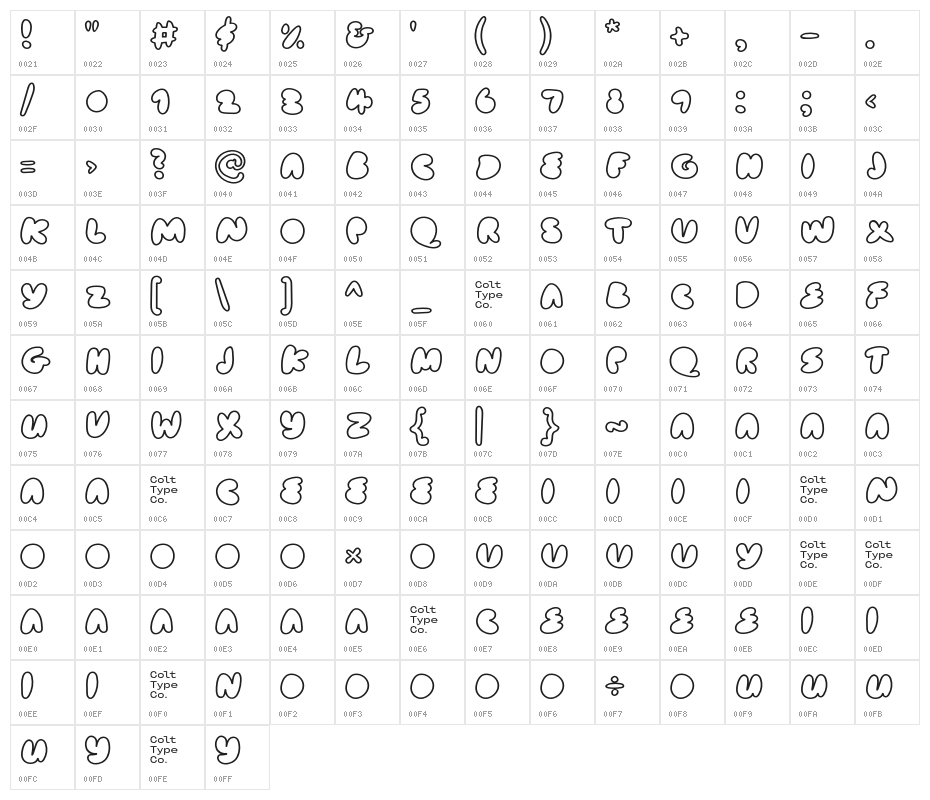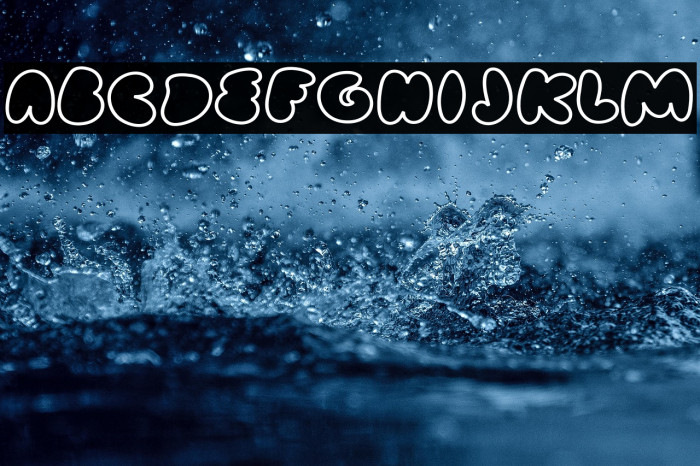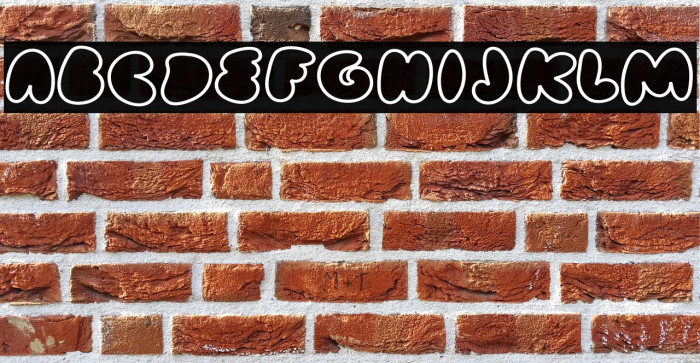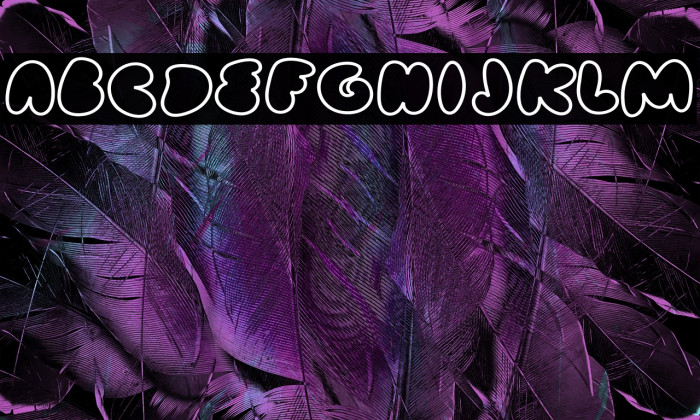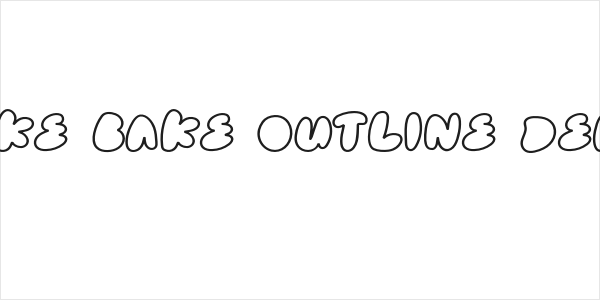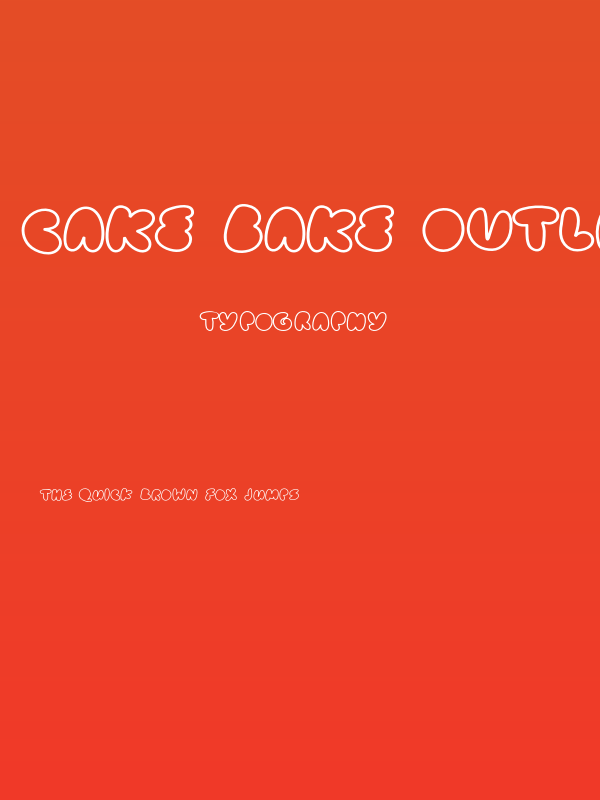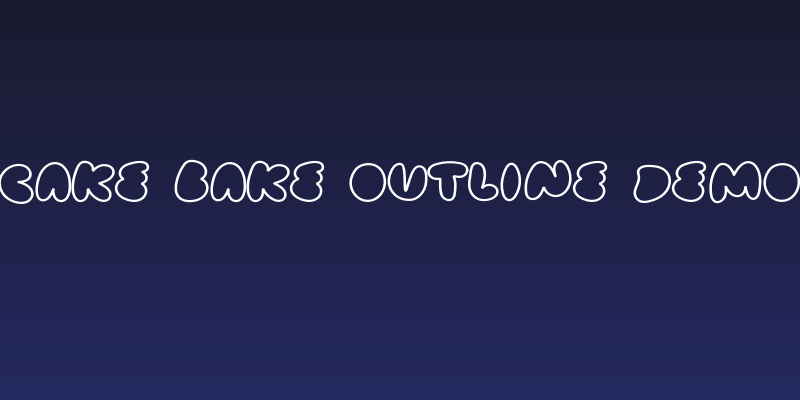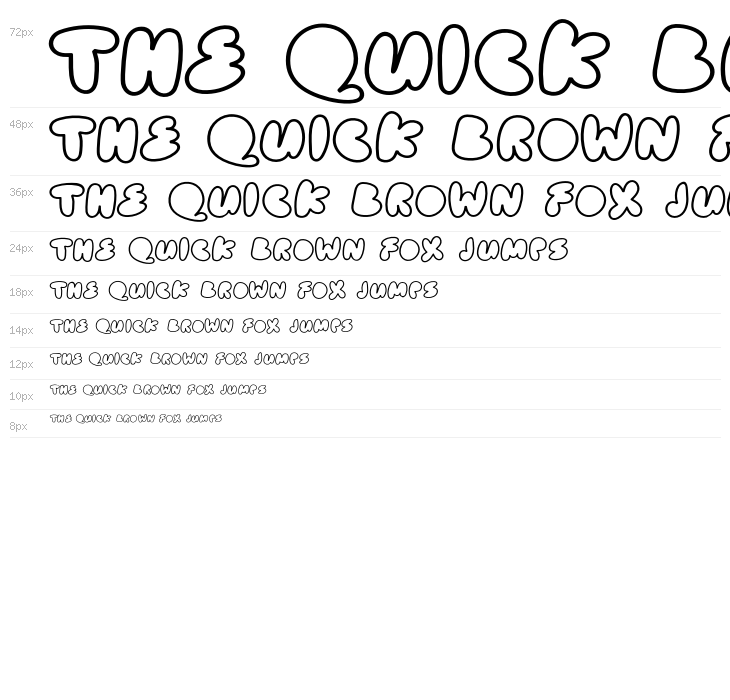
Cake Bake Outline Demo Font
Cake Bake Outline Demo Description
This playful and whimsical font features bold, rounded outlines that give it a fun and approachable appearance. The characters are designed with a bubbly aesthetic, making them appear almost like inflated balloons. Each letter maintains a consistent thickness throughout, contributing to a cohesive and uniform look. The font is highly legible, with clear distinctions between each character, making it suitable for various creative applications. Its unique style is perfect for projects that require a touch of humor or lightheartedness, such as children's books, party invitations, or playful branding.
| Proposed Projects | Ideal for children's books, party invitations, playful branding, and creative posters. |